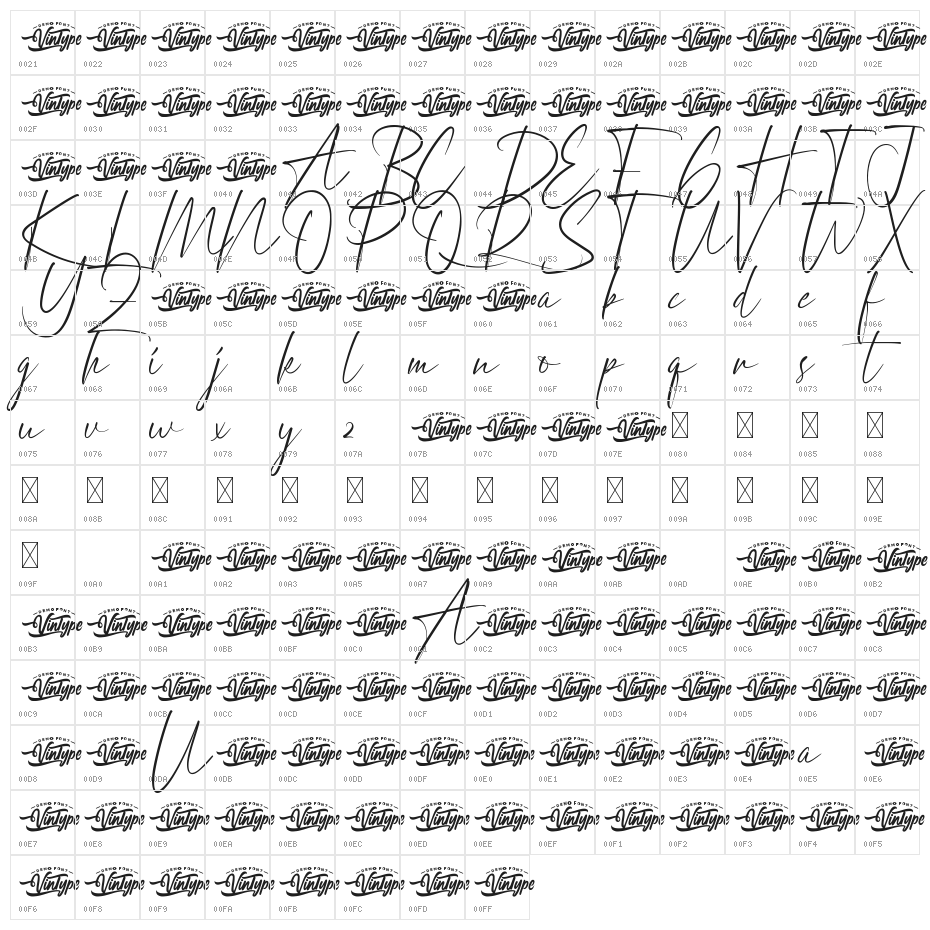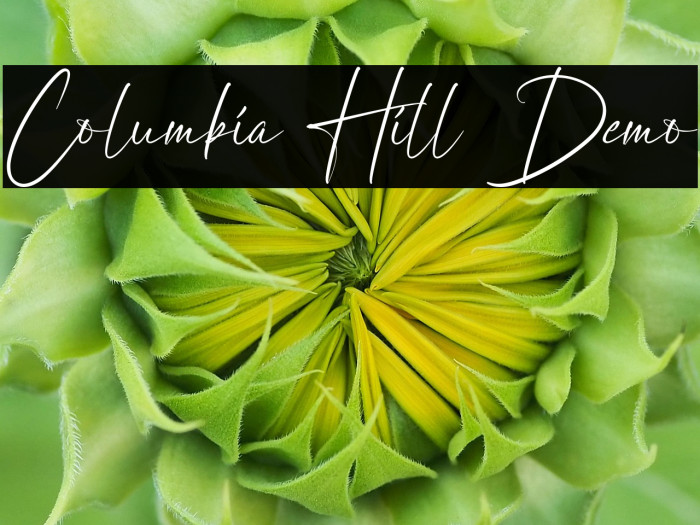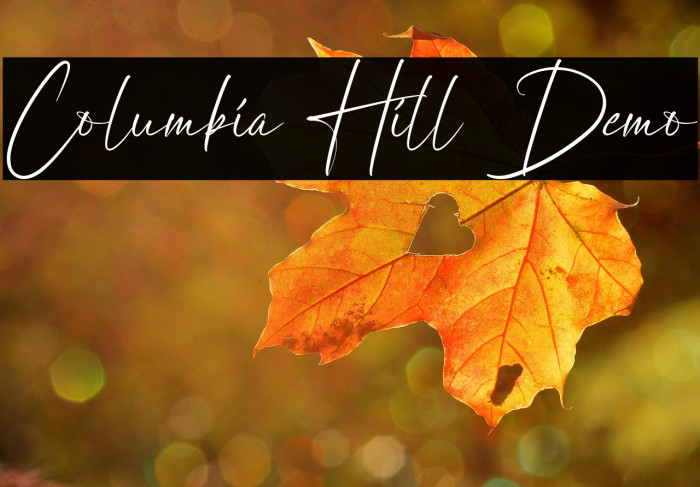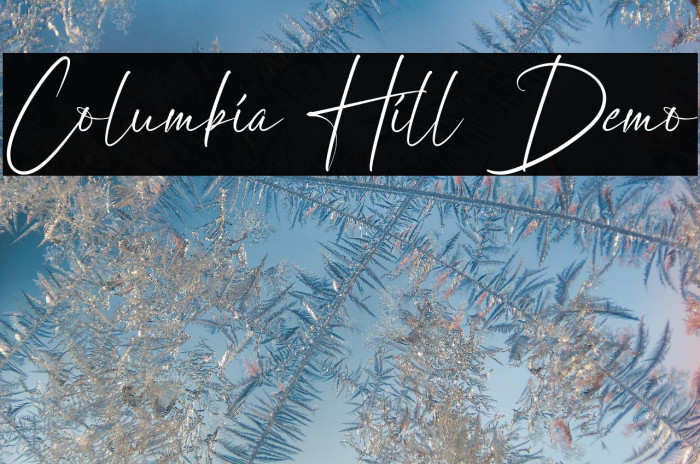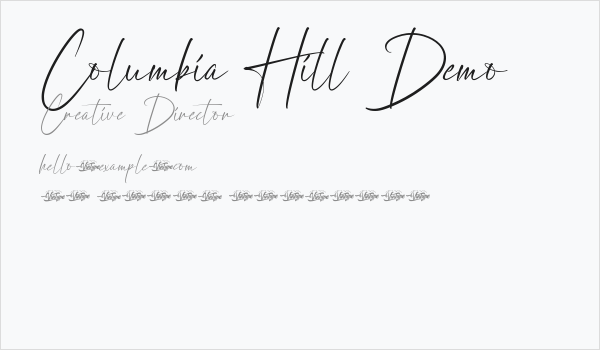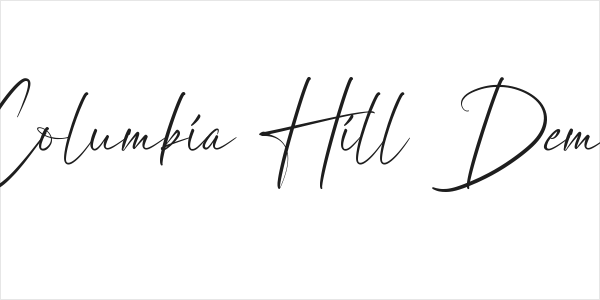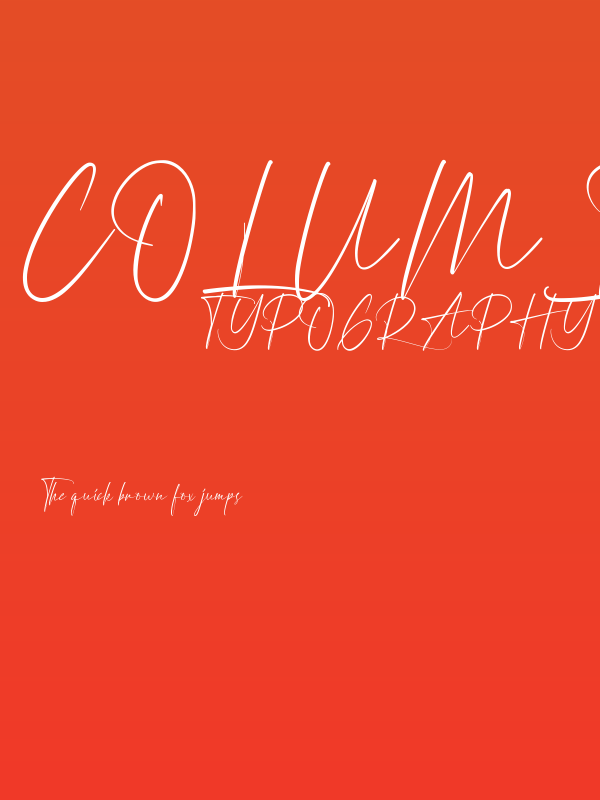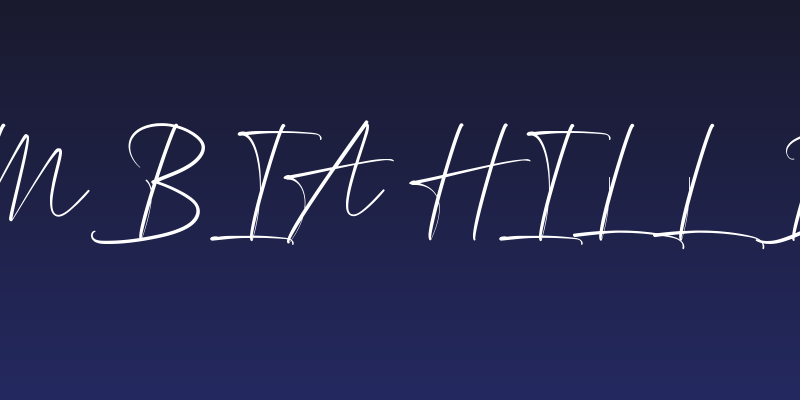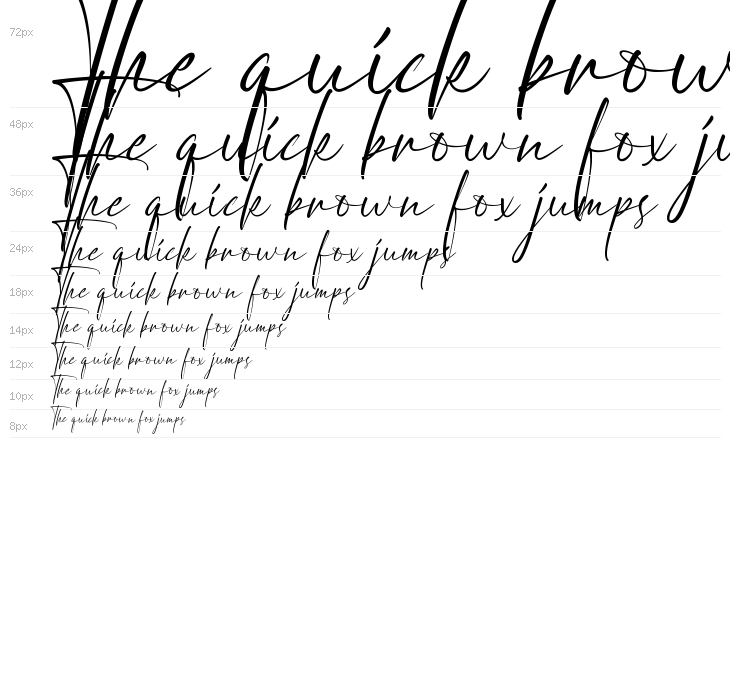
Columbia Hill Demo Font
Columbia Hill Demo Description
A decorative script font with a handwritten style, featuring elegant and flowing letterforms. The strokes are varied in thickness, giving it a dynamic and artistic appearance.
| Proposed Projects | Wedding invitations, branding, greeting cards. |